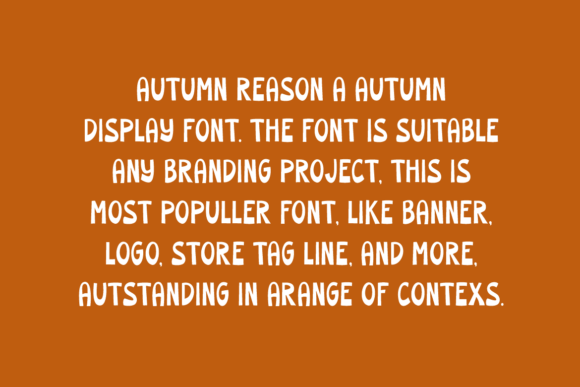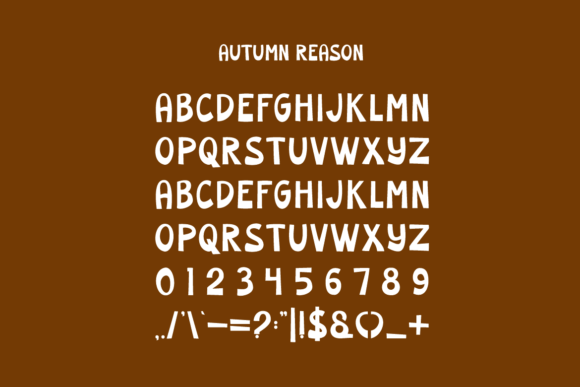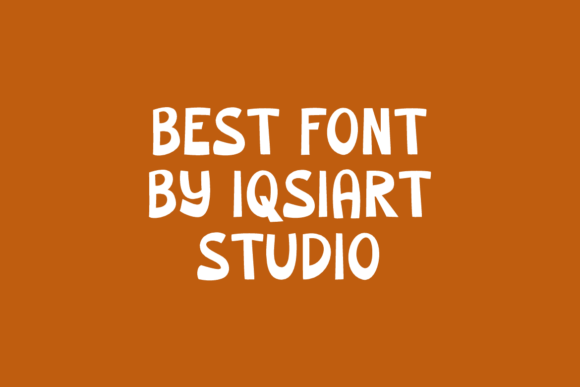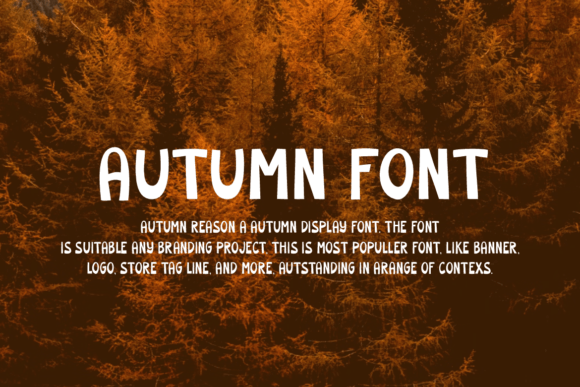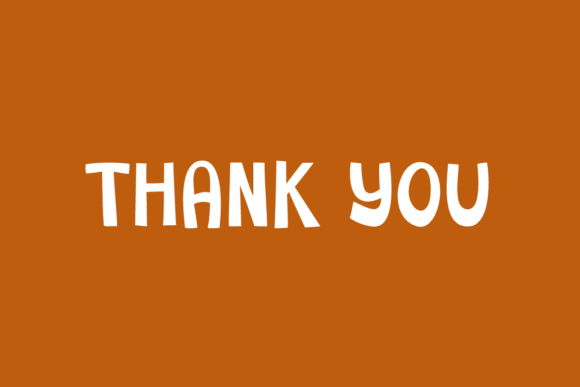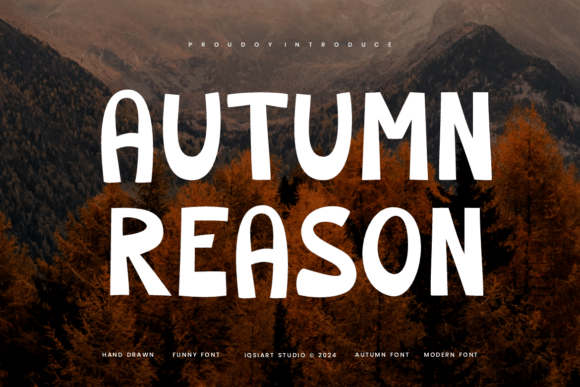
Introducing Autumn Reason Font: The Perfect Addition to Your Fall Designs
As the leaves change colors and the air grows crisp, designers and crafters alike are on the lookout for the perfect font to capture the essence of the autumn season. Look no further than Autumn Reason Font, a playful, handwritten font that embodies the cozy, seasonal feel of fall. With its bold yet soft letters, Autumn Reason Font is sure to add warmth and personality to any project.
The Characteristics of Autumn Reason Font
Autumn Reason Font is a unique and charming font that boasts a range of characteristics that make it perfect for fall-themed designs. Its letters are bold and playful, with a soft, handwritten quality that gives them a warm and inviting feel. The font’s rounded edges and gentle curves evoke a sense of coziness and comfort, making it ideal for designs that aim to capture the spirit of the autumn season.
Perfect for Fall-Themed Designs
Autumn Reason Font is specifically designed with fall-themed designs in mind. Whether you’re creating cards, posters, invitations, or any other type of project, this font is sure to bring a touch of fun and creativity to your work. Its seasonal feel makes it perfect for designs that feature fall colors, leaves, pumpkins, and other autumnal elements.
Adding Warmth and Personality to Your Projects
One of the standout features of Autumn Reason Font is its ability to add warmth and personality to any project. Its bold yet soft letters make it perfect for designs that need a touch of whimsy and playfulness. Whether you’re creating a formal invitation or a casual greeting card, Autumn Reason Font is sure to bring a smile to the recipient’s face.
Uses for Autumn Reason Font
Autumn Reason Font is a versatile font that can be used in a wide range of projects, including:
- Fall-themed cards and invitations
- Posters and flyers for autumn events
- DIY craft projects, such as signs and banners
Why Choose Autumn Reason Font?
With so many fonts to choose from, why should you choose Autumn Reason Font for your fall designs? Here are just a few reasons:
- Unique and charming design
- Bold yet soft letters
- Perfect for fall-themed designs
- Adds warmth and personality to any project
Tips for Using Autumn Reason Font
To get the most out of Autumn Reason Font, here are a few tips to keep in mind:
- Use it in combination with fall colors and elements to create a cohesive design
- Experiment with different font sizes and styles to add visual interest
- Pair it with other fonts to create a unique and eye-catching design
- Use it to add a personal touch to your designs
Autumn Reason Font is a playful, handwritten font that is perfect for fall-themed designs. With its bold yet soft letters, it adds warmth and personality to any project. Whether you’re a designer or a crafter, this font is sure to bring a touch of fun and creativity to your work. So why wait? Download Autumn Reason Font today and start creating your own unique and charming fall designs.